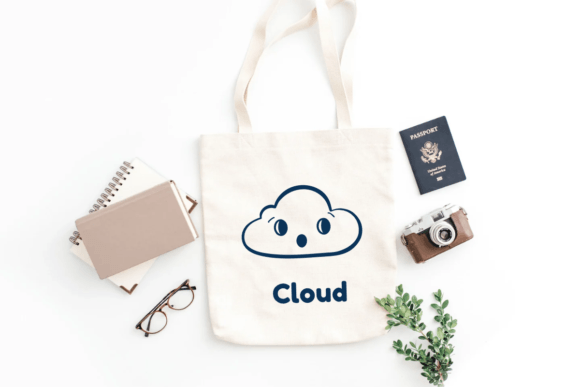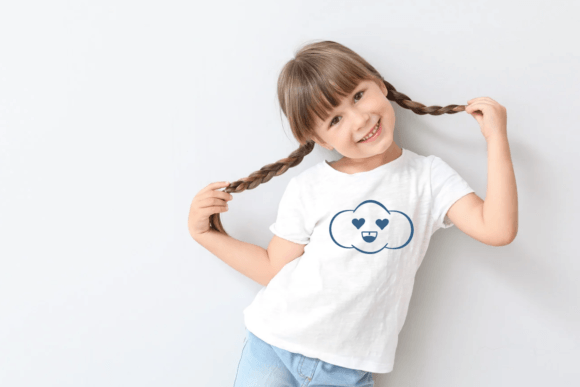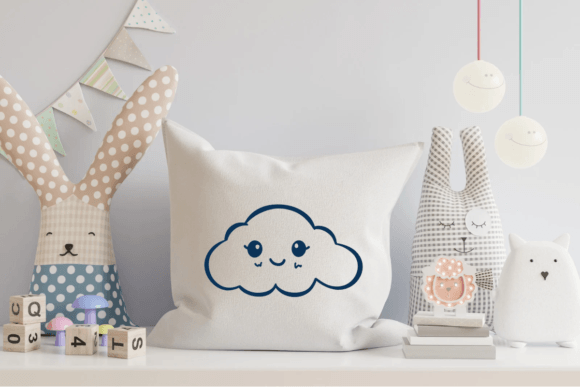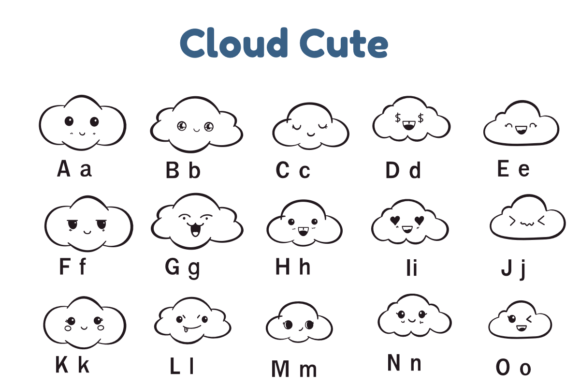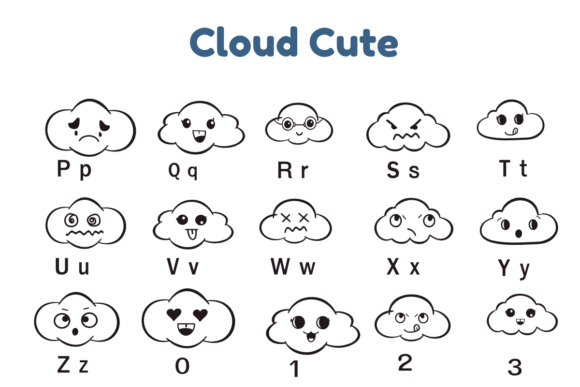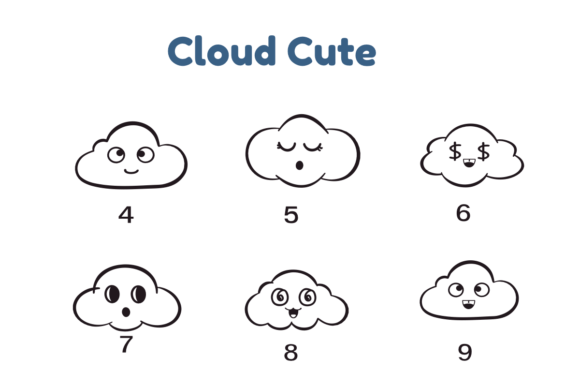
The Cloud Cute Font: A Sketched Gem for Creative Projects
I still remember the time I was working on a wedding invitation project, trying to find the perfect font to match the whimsical theme. I had a vision of something soft, playful, and romantic, but everything I found seemed either too generic or too over-the-top. That’s when I stumbled upon the Cloud Cute font, a dingbats font with a sketched style that instantly captured the essence of what I was looking for.
An Honest Review of Cloud Cute
- ✨ Unique sketched style that’s perfect for creative projects
- ✅ Easy to read and understand, even in small sizes
- 🎨 Highly versatile and can be used for various design applications
- 💕 Adorable and playful, adding a touch of whimsy to any design
While Cloud Cute is an amazing font, there are a few things to keep in mind:
- 🤔 Limited character set compared to other fonts, which might limit its use for certain projects
- ⚠️ May not be suitable for body text or long-form content due to its decorative nature
The Backstory of Cloud Cute
Cloud Cute was designed with the intention of creating a font that’s both playful and elegant. The designer, inspired by the beauty of clouds and the softness of hand-drawn illustrations, aimed to create a font that’s perfect for creative projects. With its unique sketched style, Cloud Cute is sure to add a touch of whimsy to any design.
Q: What is Cloud Cute?
Cloud Cute is a dingbats font with a sketched style, perfect for creative projects such as wedding invitations, DIY crafts, decorations, logos, and more.
Q: Is Cloud Cute suitable for body text?
No, Cloud Cute is a decorative font and may not be suitable for body text or long-form content. It’s best used for headings, titles, or short phrases.